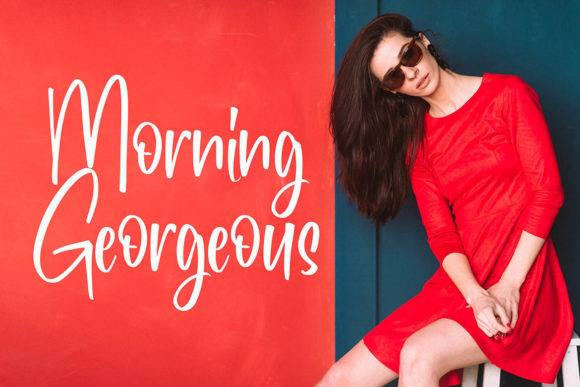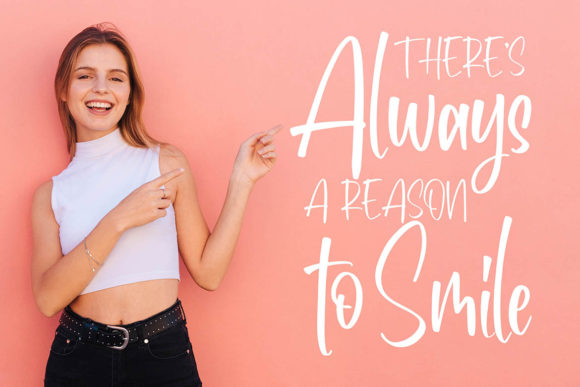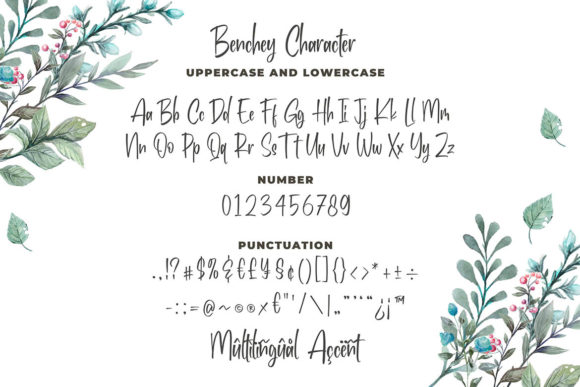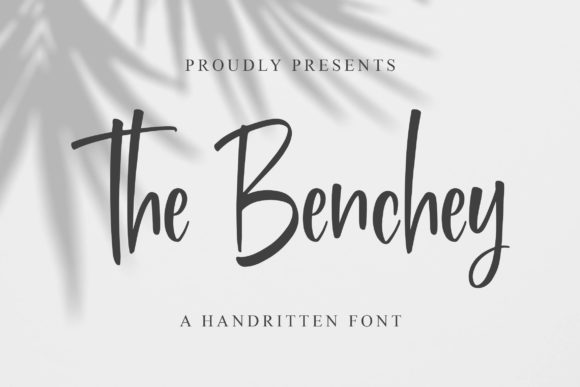
Benchey Font: The Perfect Addition to Your Summer Designs
Are you looking for a font that captures the carefree and playful spirit of summer? Look no further than Benchey, a summery and light display font that’s sure to bring a touch of charm to your designs. With its friendly vibe and effortless feel, Benchey is the perfect choice for designers and crafters who want to add a little warmth and personality to their work.
The Characteristics of Benchey Font
Benchey is a display font that’s specifically designed to evoke the feeling of a warm summer day. Its light and airy texture makes it perfect for use in headlines, titles, and other design elements where you want to make a statement. The font’s characters are carefully crafted to have a friendly and approachable feel, with subtle imperfections that give it a handmade look.
What Makes Benchey Font So Special?
So what sets Benchey apart from other fonts on the market? Here are just a few things that make it so special:
- Unique Character: Benchey has a distinctive character that’s all its own. Its combination of light and airy textures, subtle imperfections, and friendly vibe make it a truly one-of-a-kind font.
- Versatility: Despite its unique character, Benchey is surprisingly versatile. It can be used in a wide range of design applications, from summer-themed party invitations to branding and packaging.
- Easy to Read: One of the things that sets Benchey apart from other display fonts is its readability. Even at smaller sizes, the font remains clear and easy to read, making it perfect for use in a variety of design contexts.
How to Use Benchey Font in Your Designs
So now that you know a little bit more about Benchey, how can you use it in your designs? Here are a few ideas to get you started:
- Summer-Themed Designs: Benchey is perfect for summer-themed designs, such as party invitations, beach signs, and other materials that need to evoke a carefree and playful vibe.
- Branding and Packaging: Benchey’s friendly and approachable character make it a great choice for branding and packaging applications, especially for businesses that want to convey a sense of warmth and personality.
- Headlines and Titles: Benchey’s light and airy texture make it perfect for use in headlines and titles, where you want to make a statement and grab the reader’s attention.
Tips for Getting the Most Out of Benchey Font
Here are a few tips for getting the most out of Benchey:
- Experiment with Different Sizes: Benchey looks great at a variety of sizes, so don’t be afraid to experiment and see what works best for your design.
- Pair it with Other Fonts: Benchey pairs well with a wide range of other fonts, so feel free to get creative and try out different combinations.
- Use it to Add Personality: Benchey is all about personality and charm, so don’t be afraid to use it to add a little extra something to your designs.
In conclusion, Benchey is a summery and light display font that’s sure to bring a touch of charm and personality to your designs. With its friendly vibe, effortless feel, and versatility, it’s the perfect choice for designers and crafters who want to add a little warmth and character to their work. So why not give Benchey a try and see how it can inspire your next design project?
Benchey Font: The Perfect Addition to Your Summer Designs
In conclusion, Benchey is a summery and light display font that’s sure to bring a touch of charm and personality to your designs. With its friendly vibe, effortless feel, and versatility, it’s the perfect choice for designers and crafters who want to add a little warmth and character to their work.